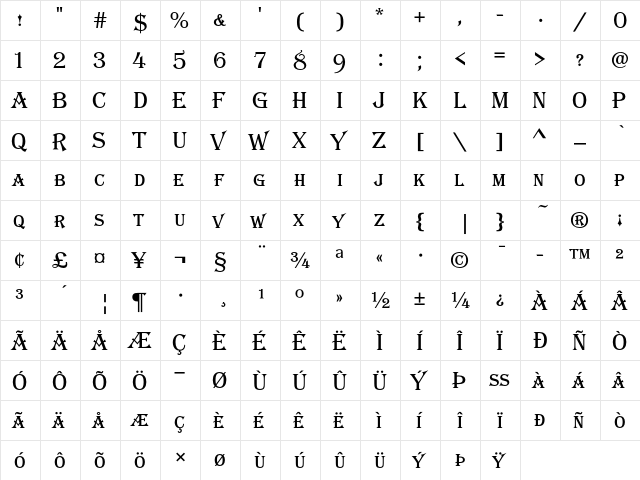
Algerian Basic SC D Regular
Design Context for Algerian Basic SC D Typeface
Algerian Basic SC D offers clean, dependable letterforms without strong stylistic allegiance, making it a practical choice for designers who need flexibility.